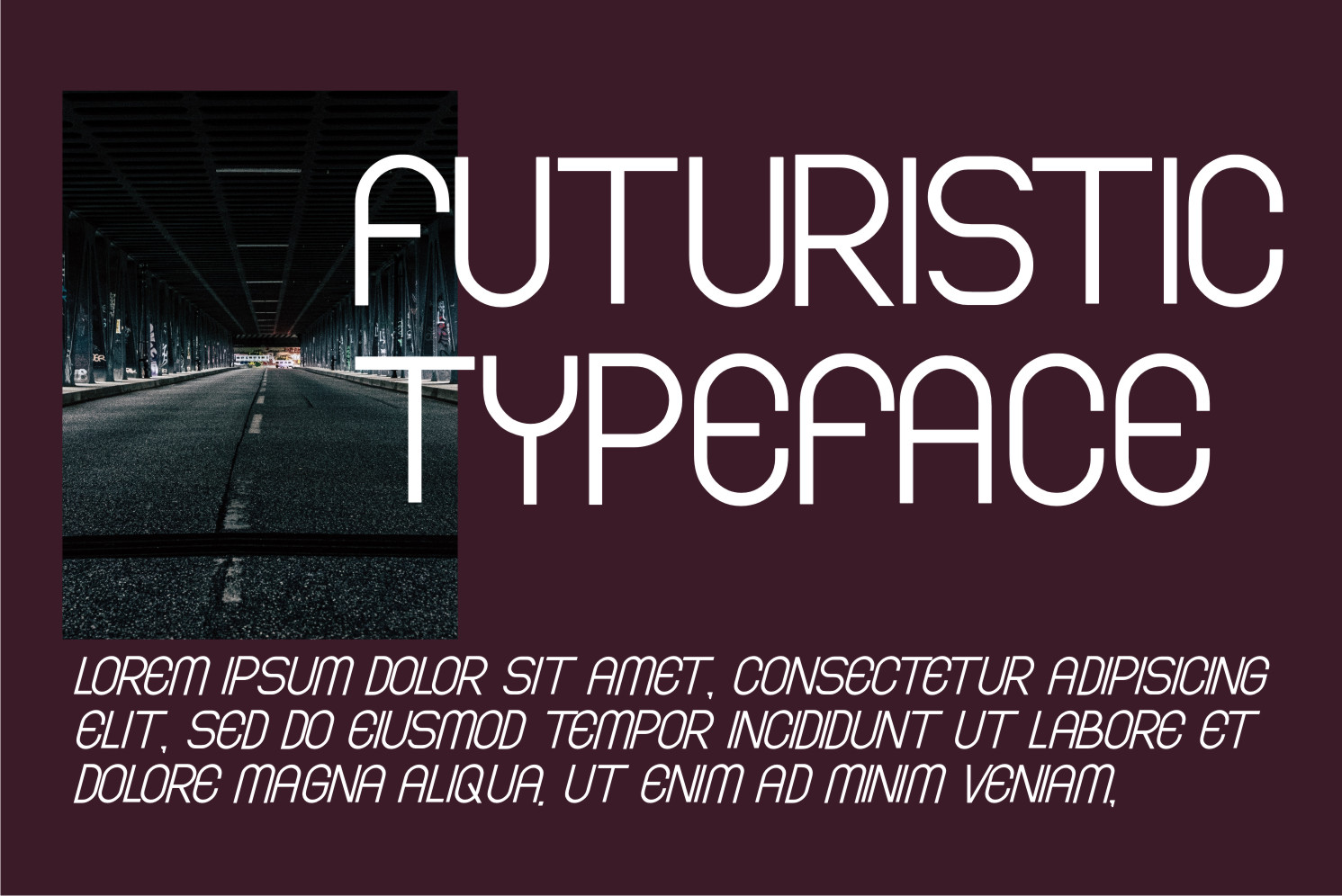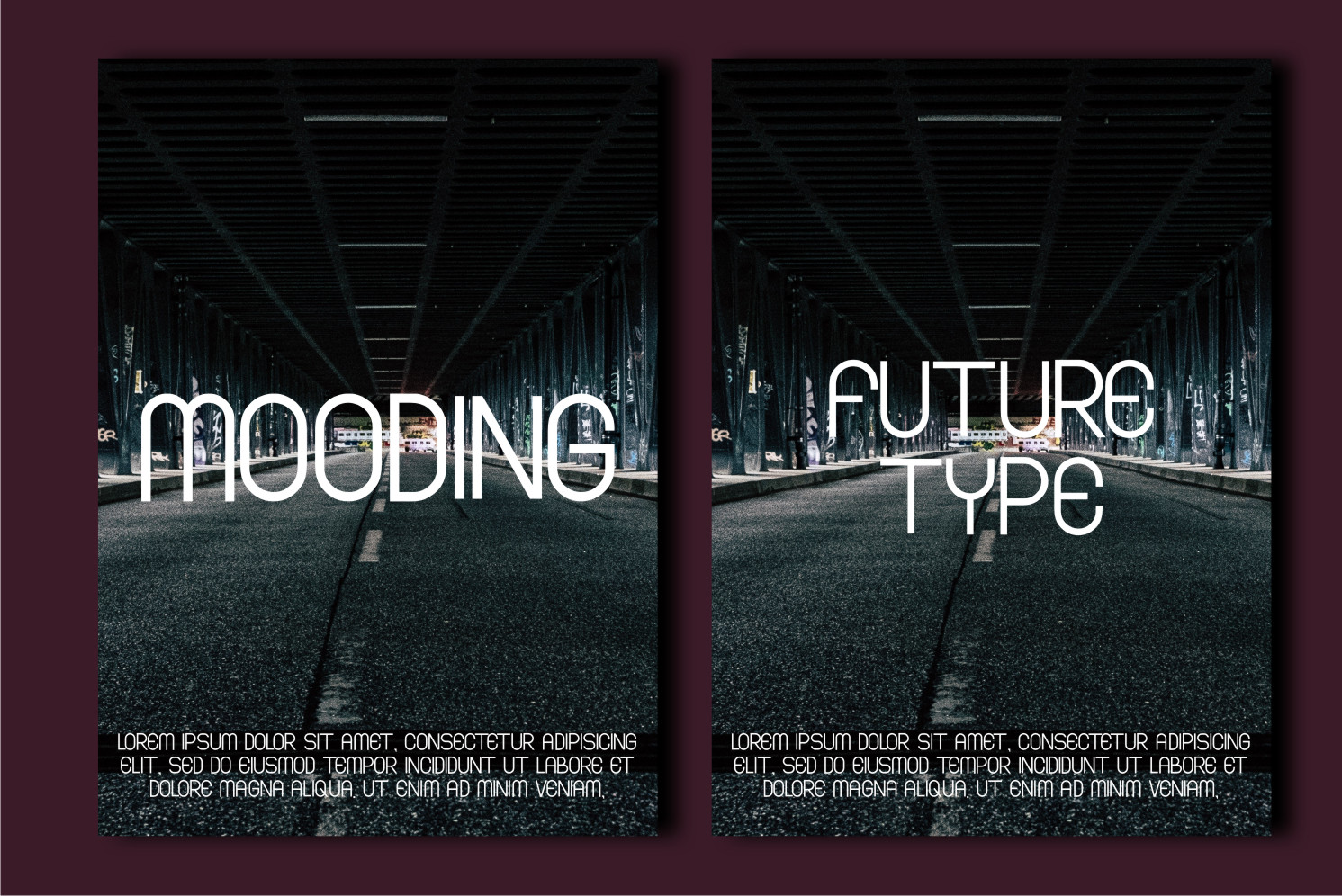
Moleas Andres Font
Moleas Andres Display Font
It’s a cool, modern and distinct display font. It is suitable for designs such as t-shirts, sportswear, logos, advertisements, clothing, and many other crafty ideas that need a charming look!